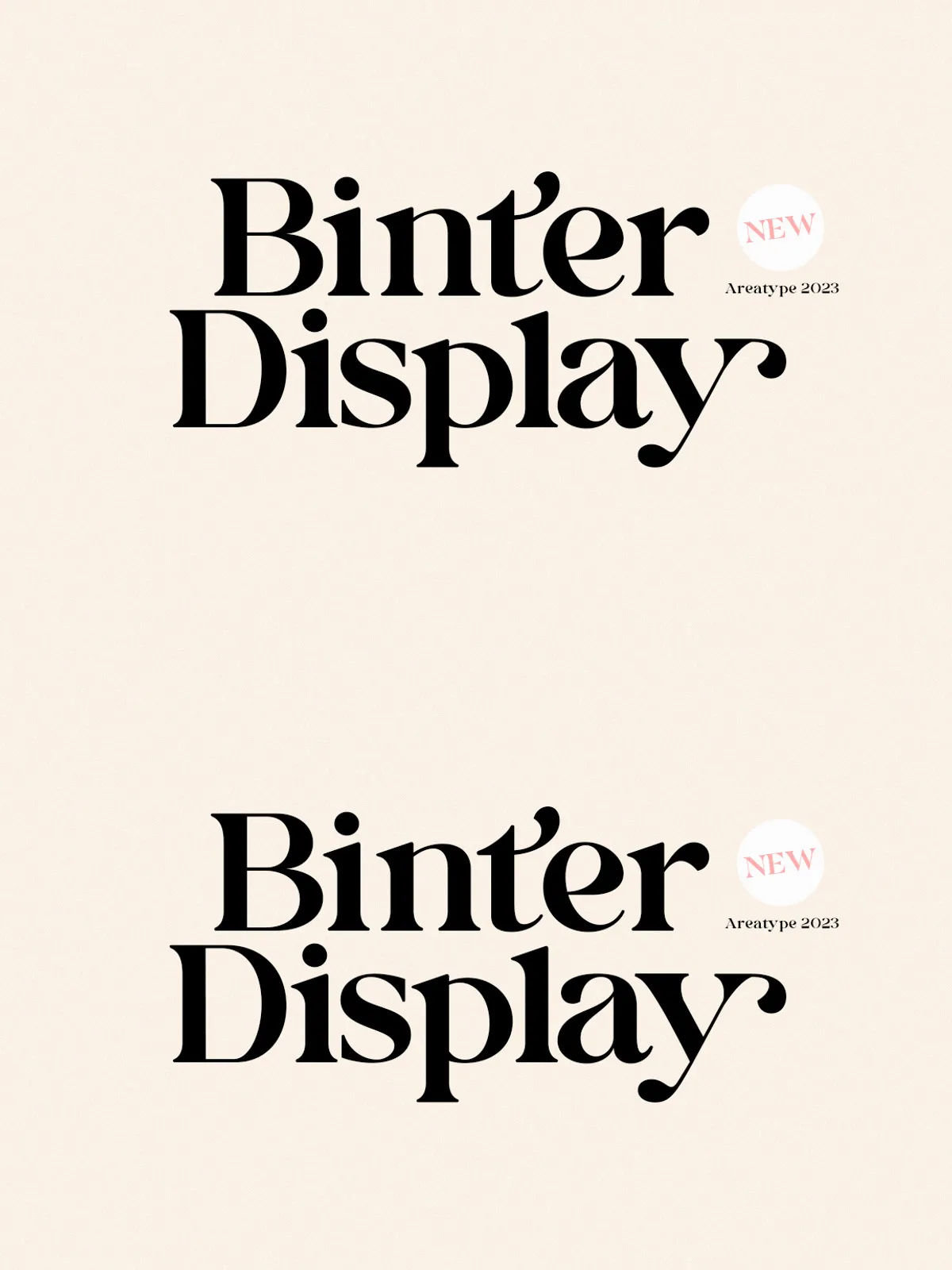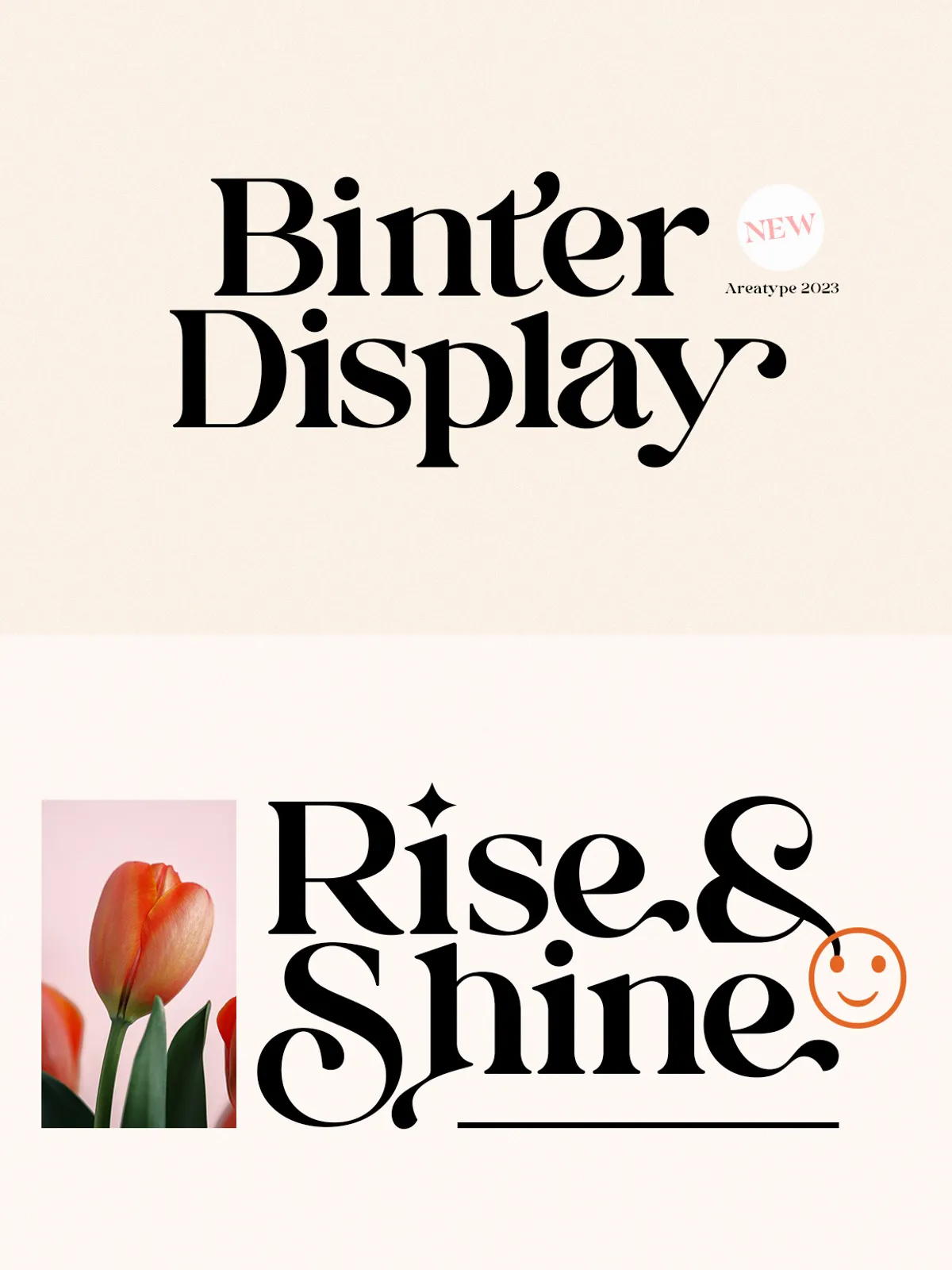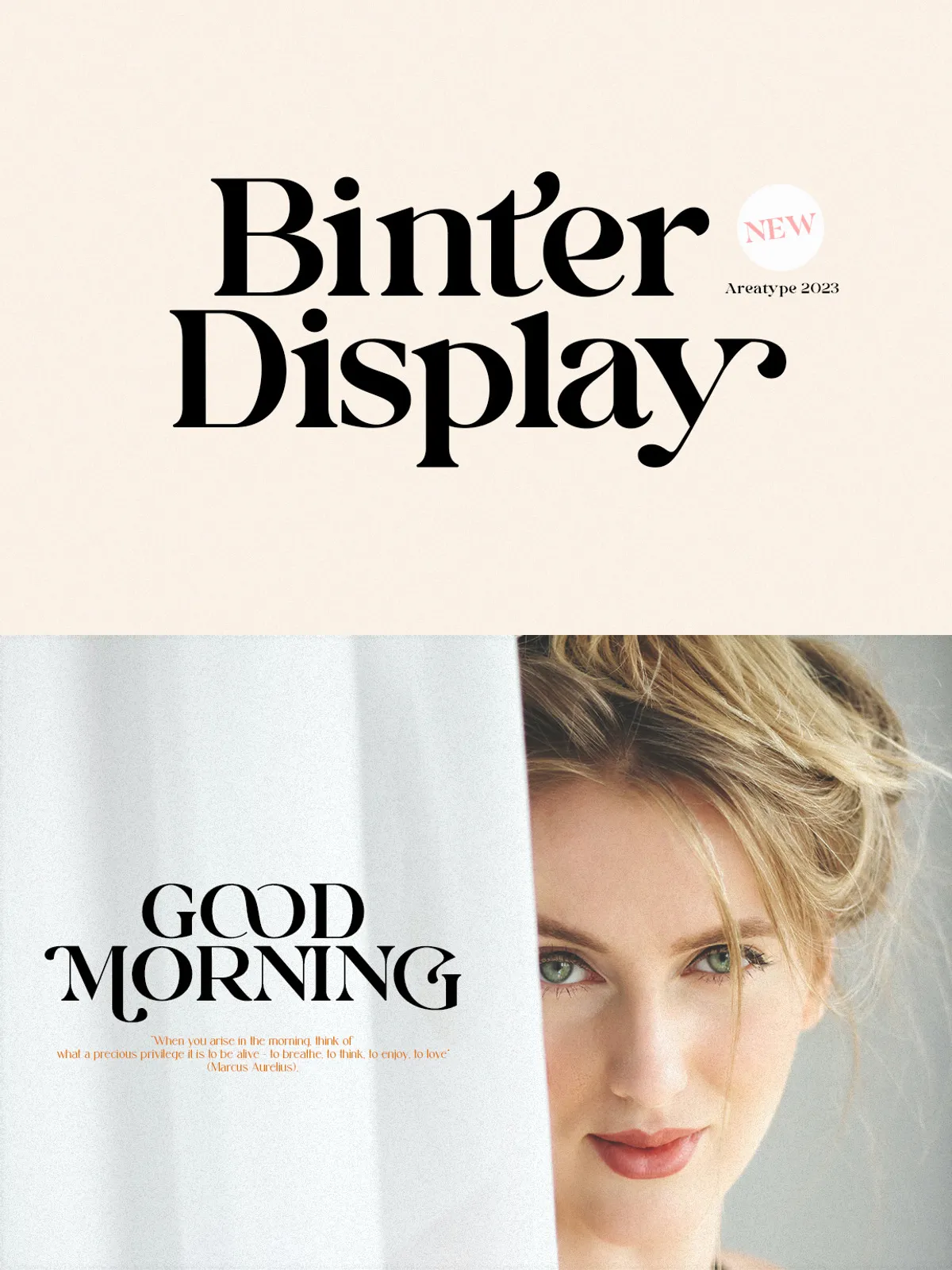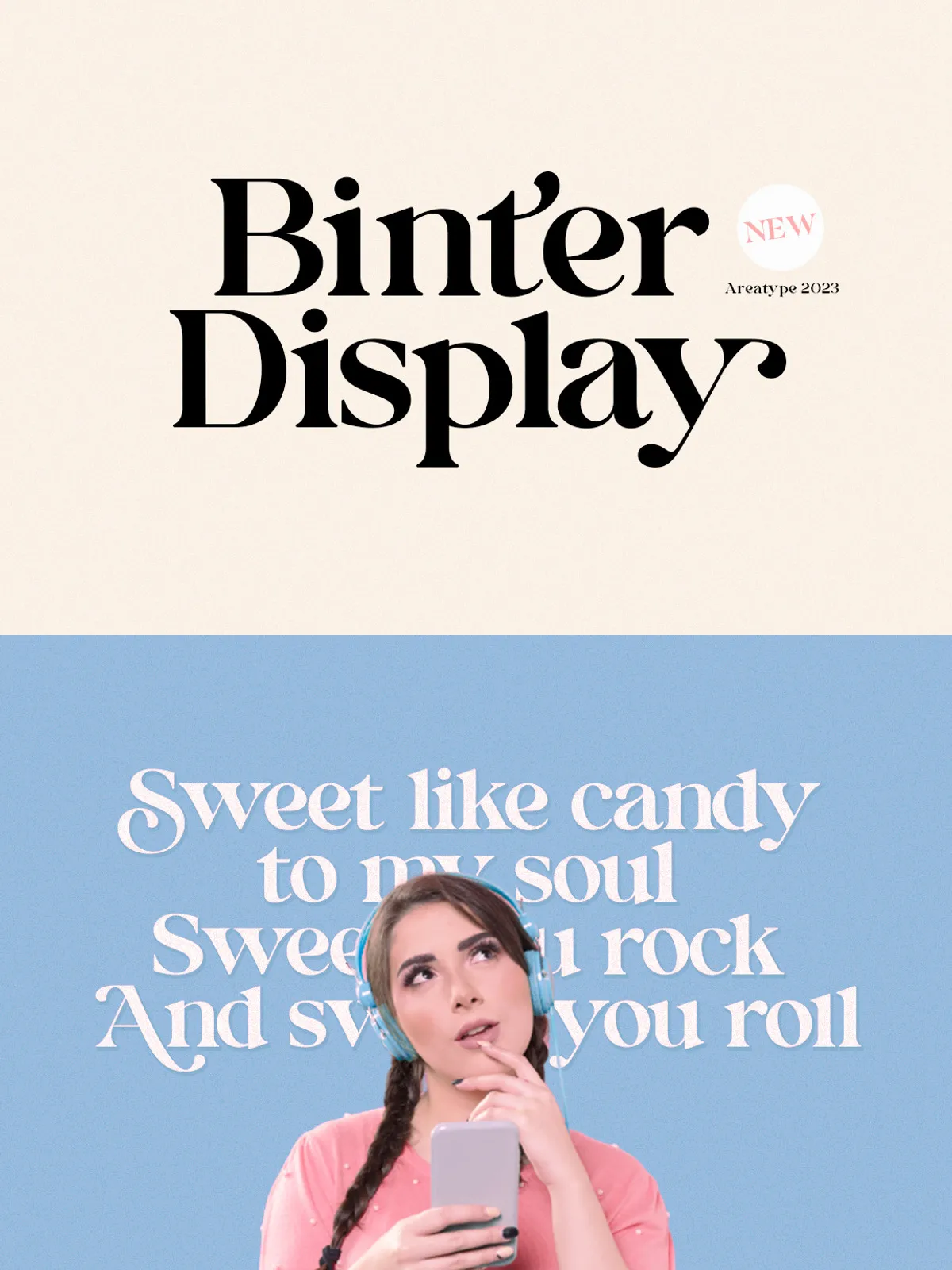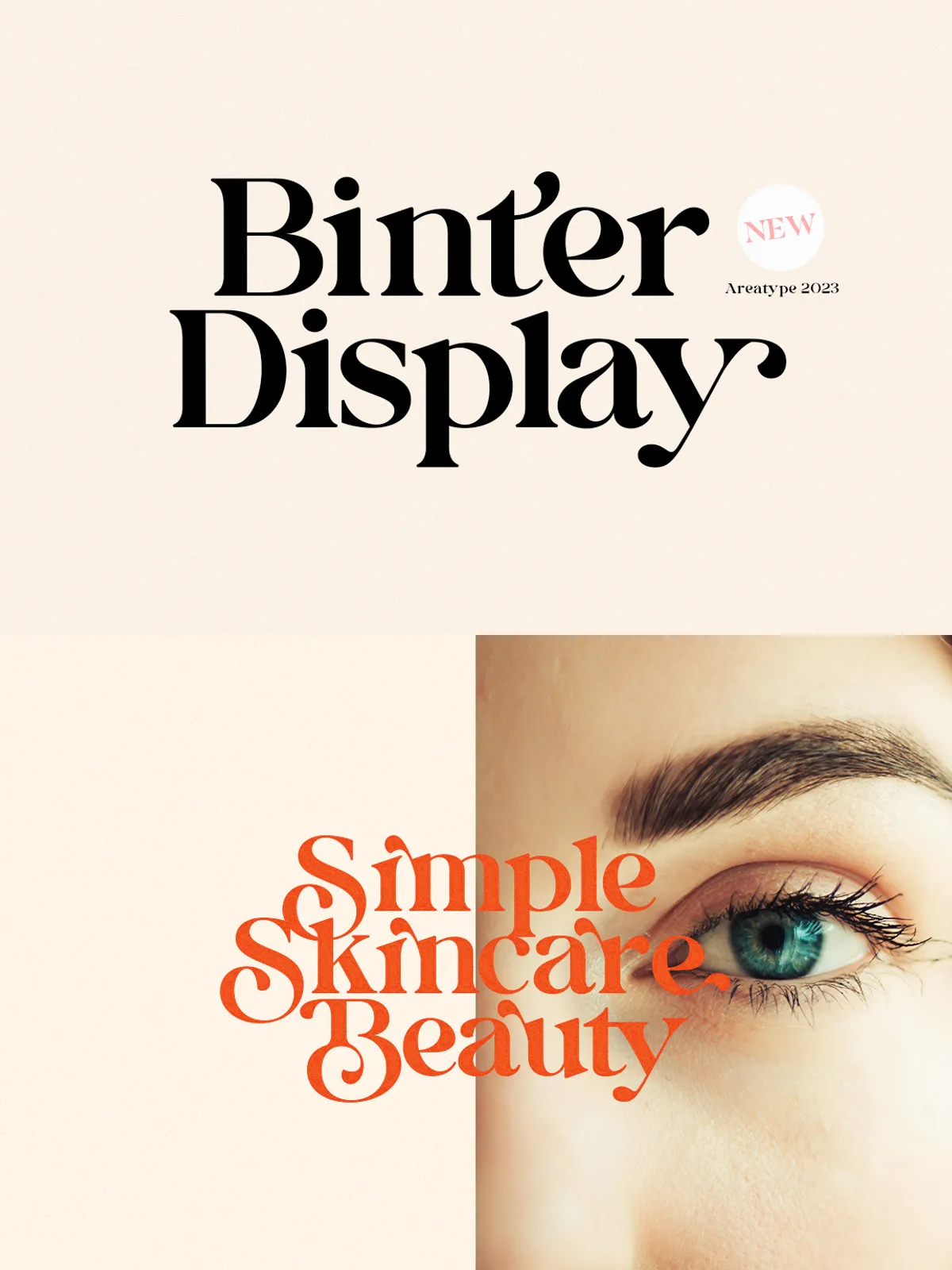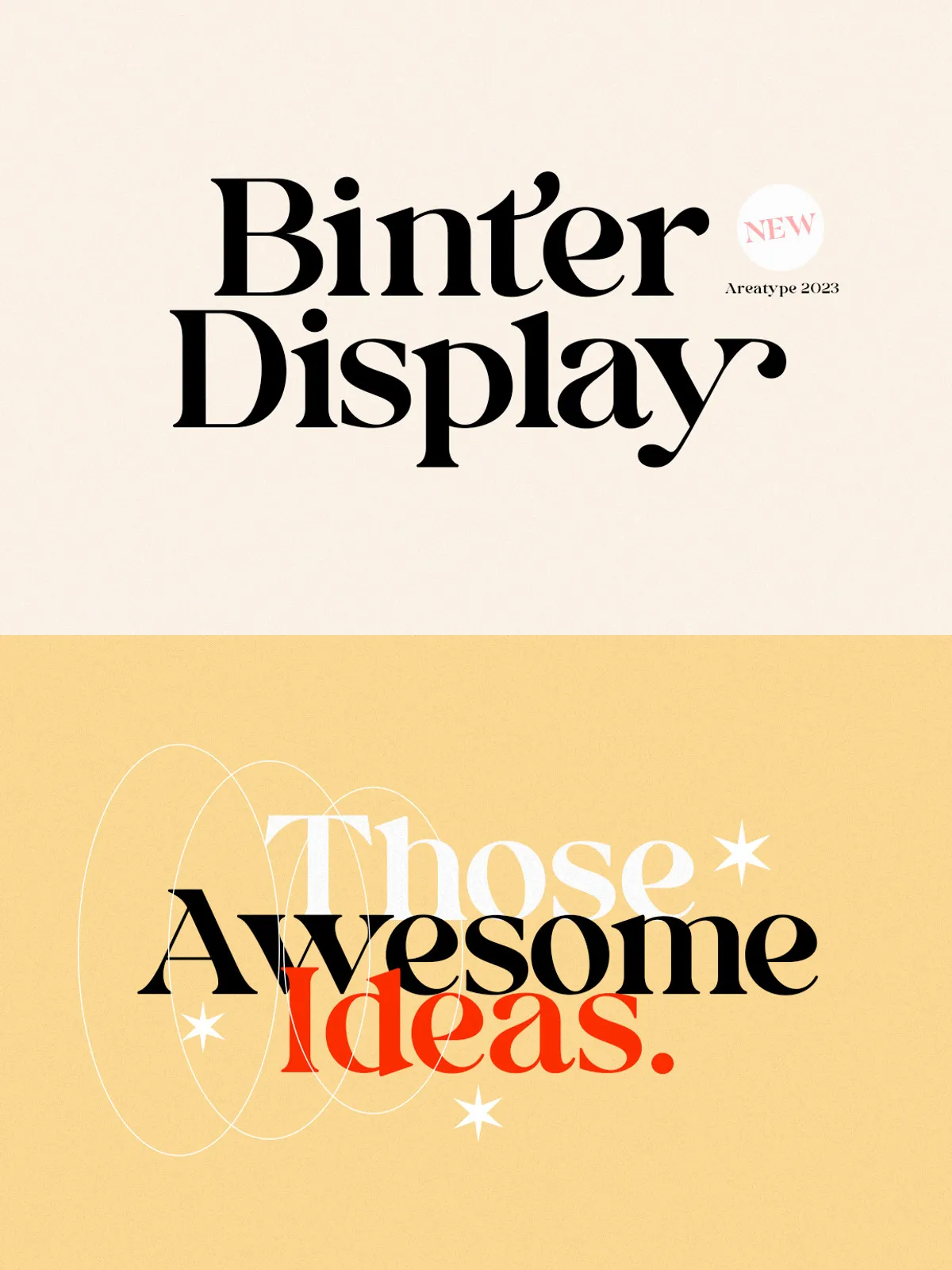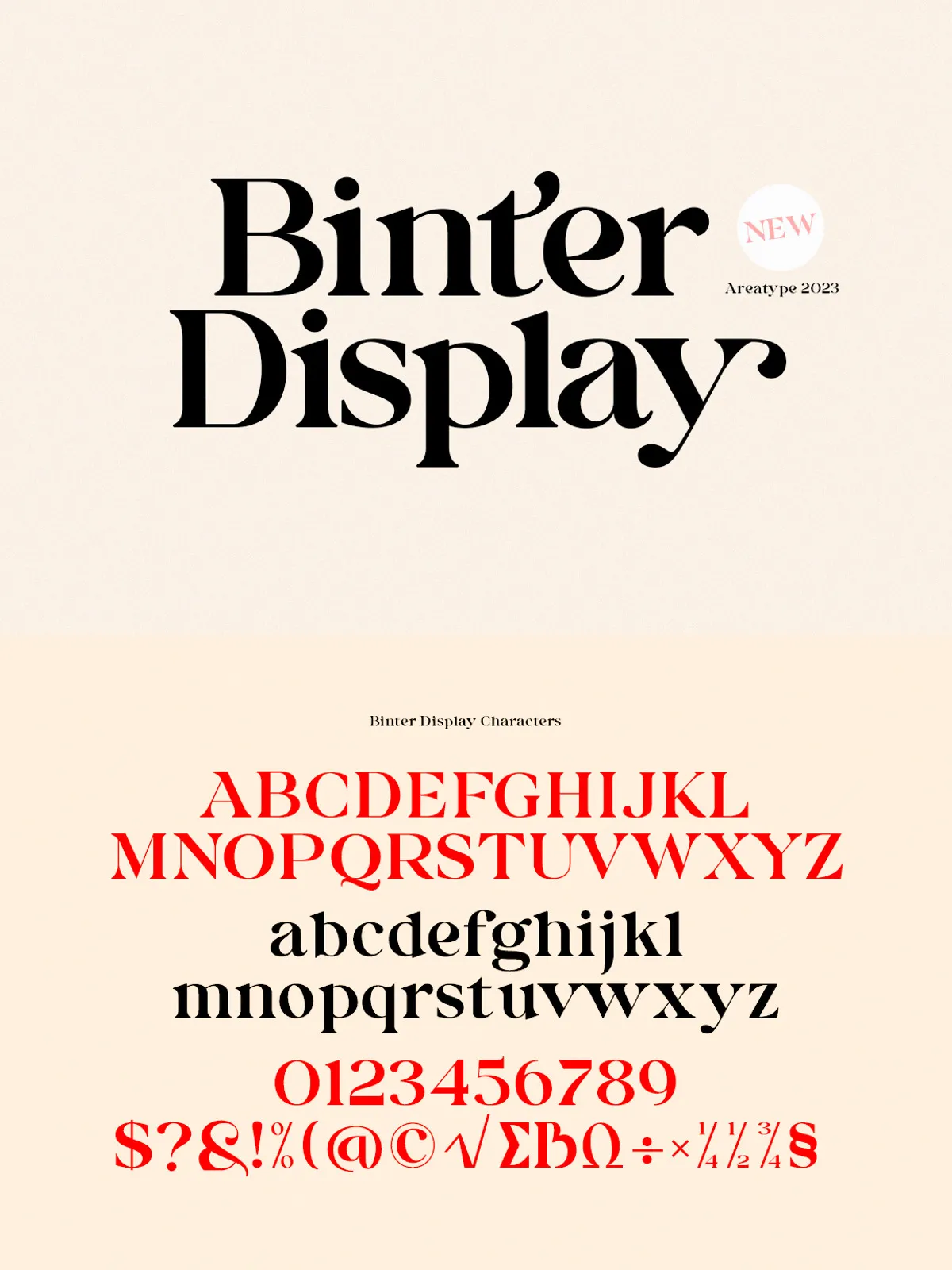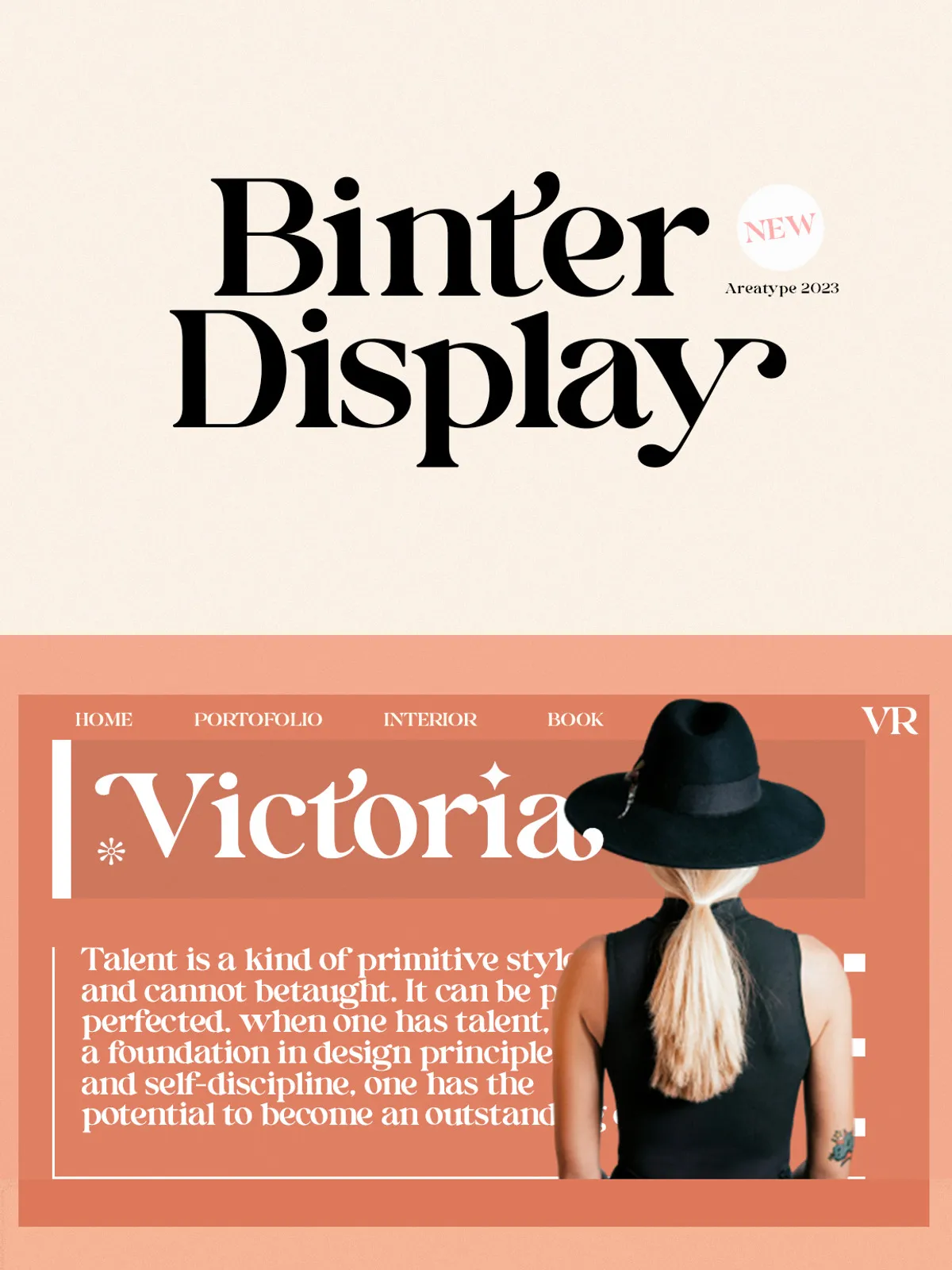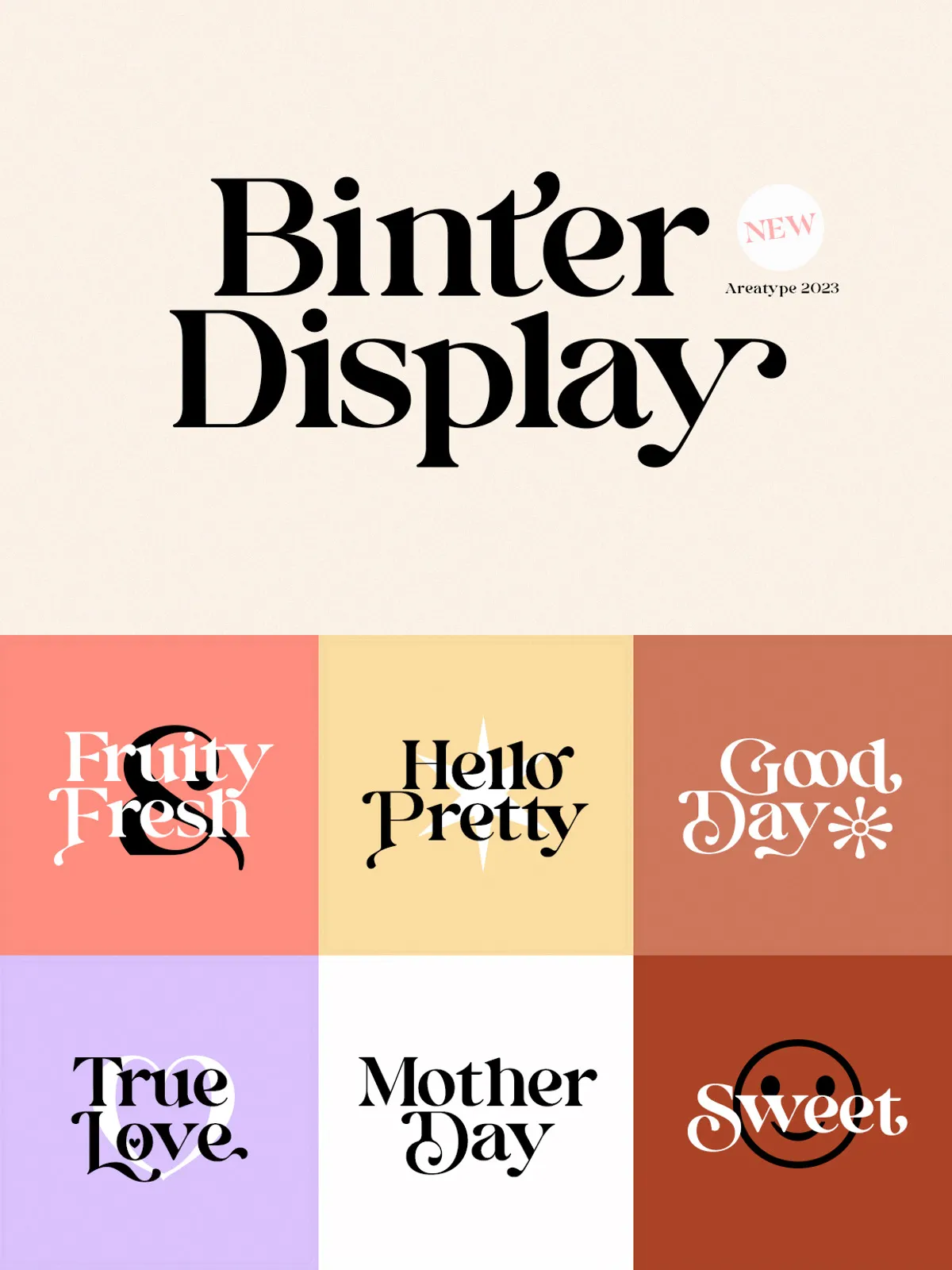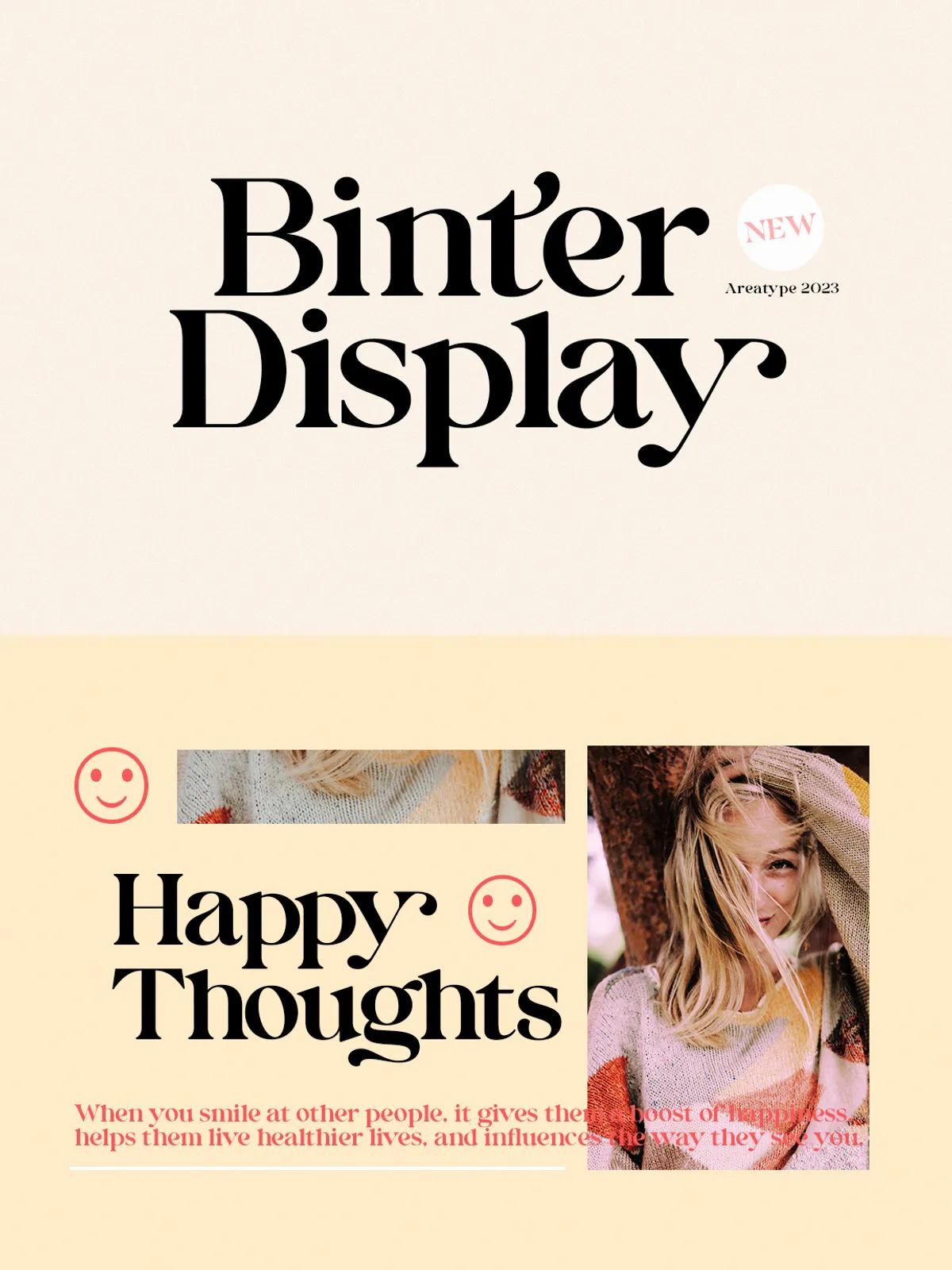
Binter Display | Classy Serif
Binter Display delivers a refined, flexible typographic voice that adapts to a wide range of design projects. Built for legibility and visual impact, this display face balances clean forms with expressive details so you can craft striking magazine spreads, elegant wedding invitations, and confident brand identities. Designers will find Binter Display responsive to scale: it reads clearly in large headlines while retaining personality in tighter layouts.
Design Character & Visual Applications
Binter Display emphasizes clarity and style. The letterforms combine contemporary proportions with subtle display features that add warmth and character without compromising readability. Use it for aspirational editorial layouts, promotional posters, and packaging where a confident typographic statement matters. Its construction supports both modern and classic aesthetics, making it a reliable choice for lifestyle and luxury brands.
Recommended Use Cases
• Magazine covers and editorial headlines
• Wedding invitations, RSVP cards, and event stationery
• Logotypes, brand wordmarks, and identity systems
• Posters, signage, and point-of-sale materials
• Web hero headers and promotional banners
Features & OpenType Behavior
Binter Display ships with essential typographic features that speed production and enhance polish. The family includes carefully drawn numerals and punctuation, stylistic alternates for creative variation, and ligatures that tighten letter combinations for a refined, handcrafted feel. PUA-encoded characters expand your creative toolkit by enabling easy access to special glyphs within common design applications.
• Distinctive display letterforms designed for strong visual hierarchy
• Complete numerals and punctuation for editorial and data-driven layouts
• Stylistic alternates to customize tone and expression
• Ligatures that improve optical rhythm and word shapes
• PUA-encoded characters for extended glyph access